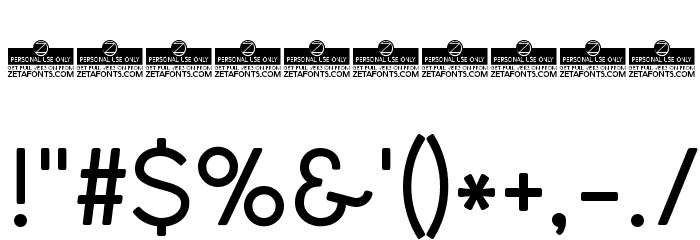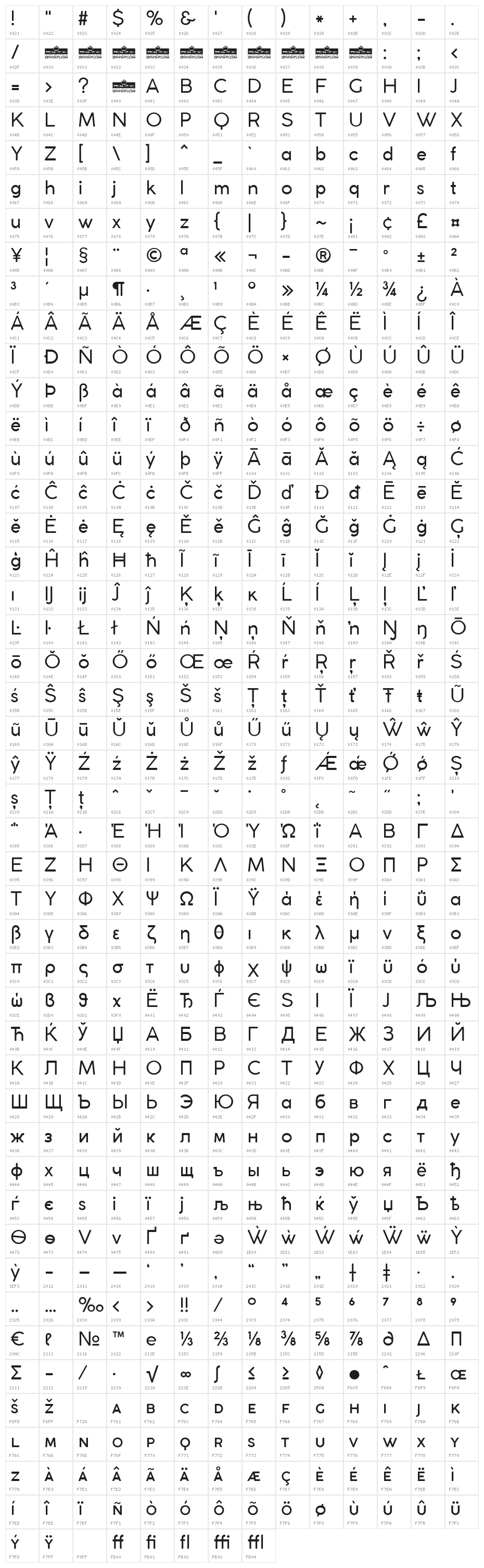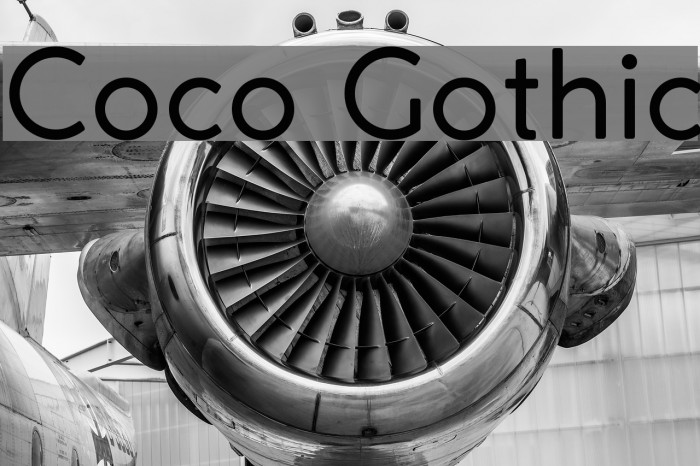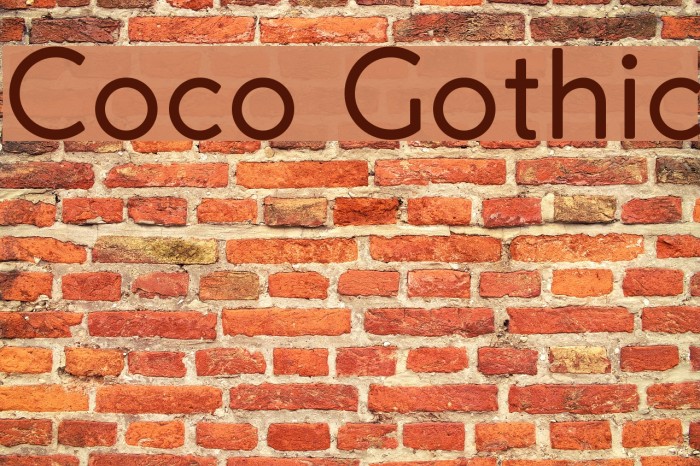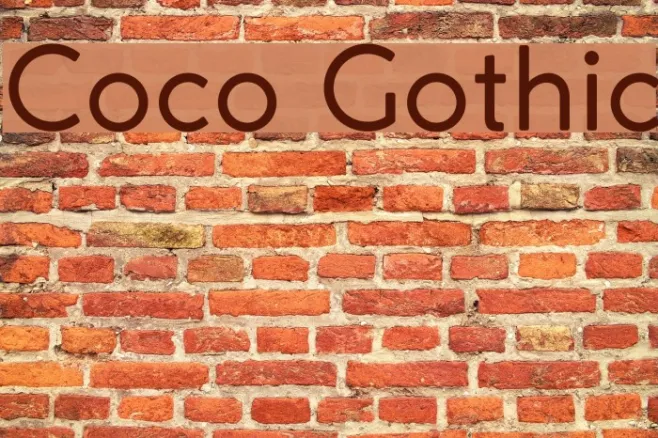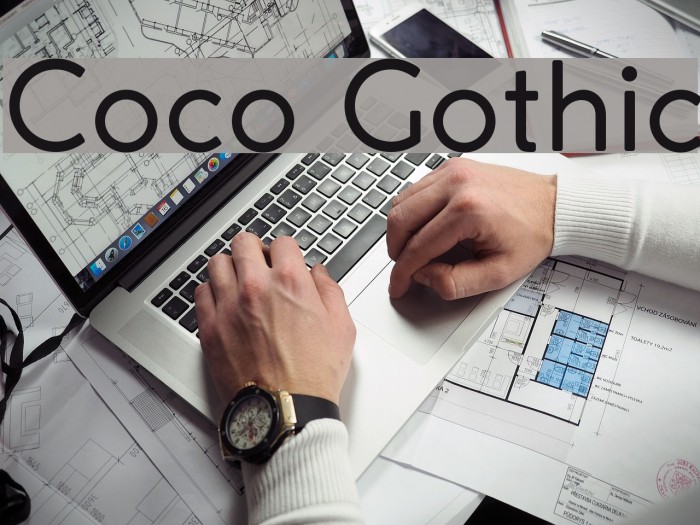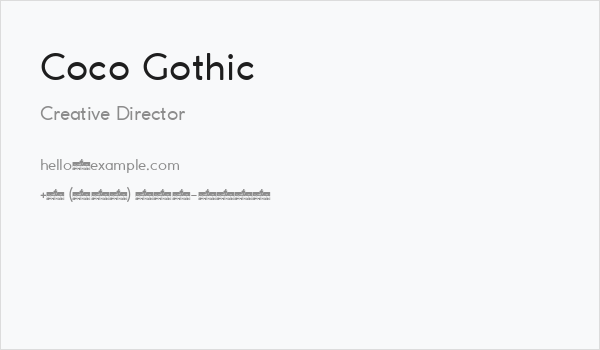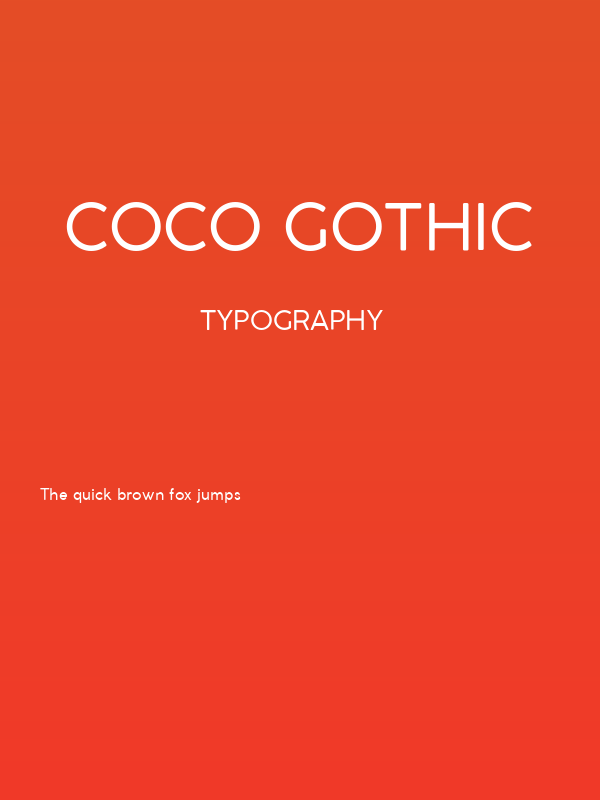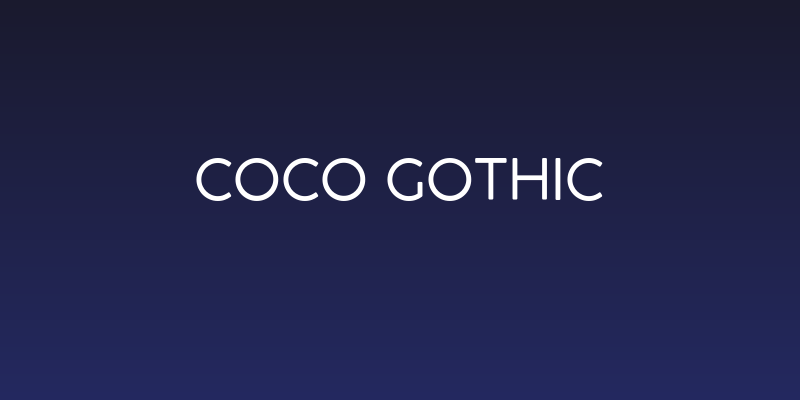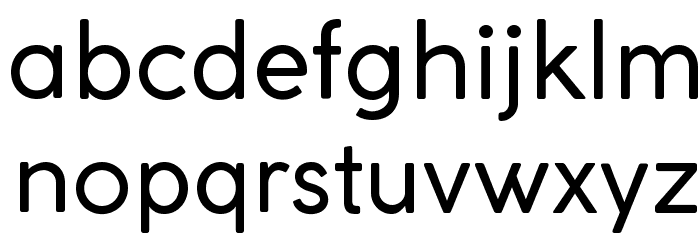
Coco Gothic Font
Coco Gothic Description
This font features a clean and modern sans-serif design with a geometric structure. The characters are uniform in width, providing a balanced and harmonious appearance. The uppercase letters are bold and assertive, while the lowercase letters maintain a friendly and approachable feel. The numerals are clear and easily readable, making them suitable for various applications. The special characters are well-integrated, maintaining the overall aesthetic of the font. Its simplicity and clarity make it versatile for both digital and print media.
| Proposed Projects | Ideal for branding, web design, advertising, and editorial projects where clarity and modernity are essential. |